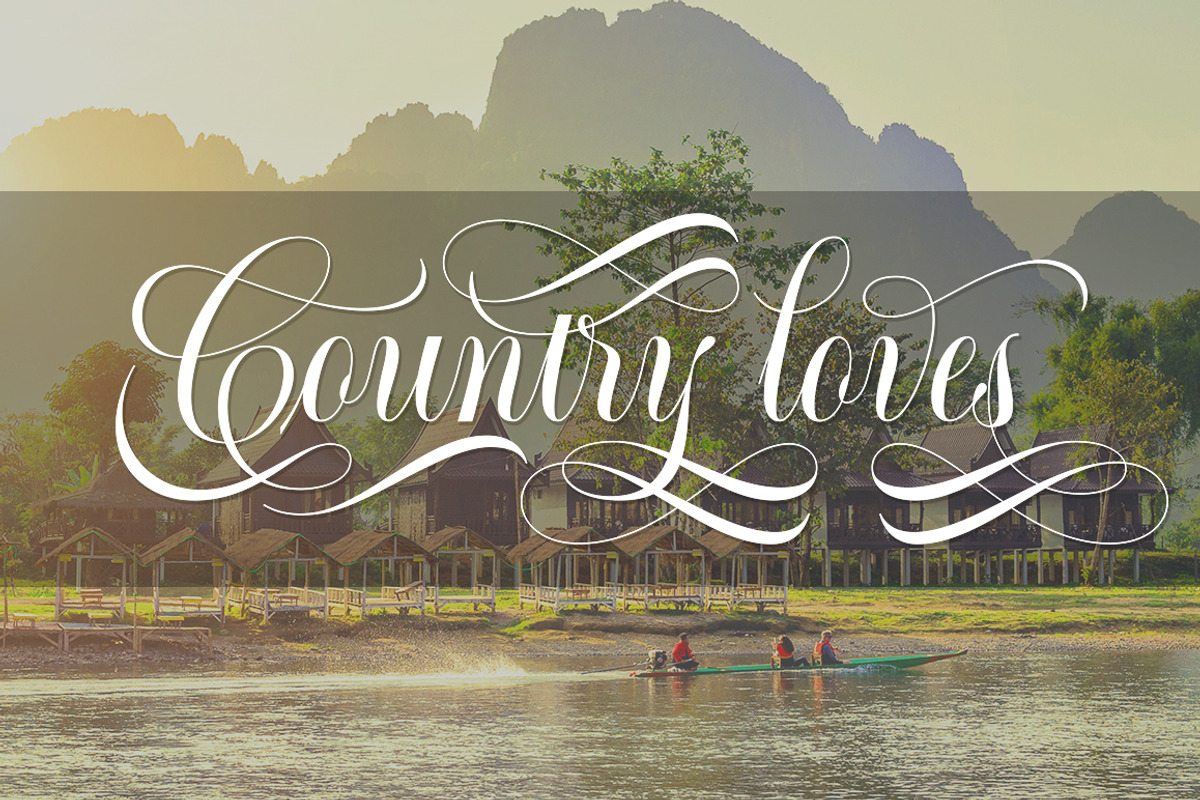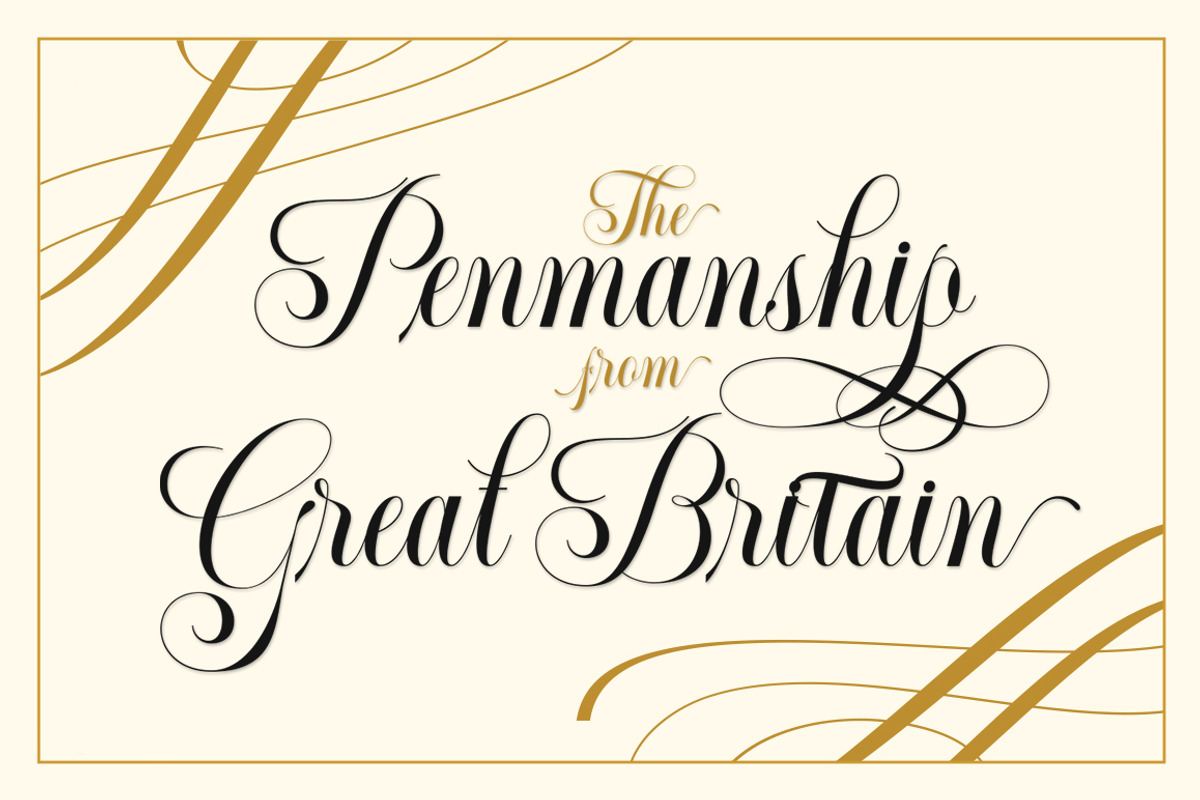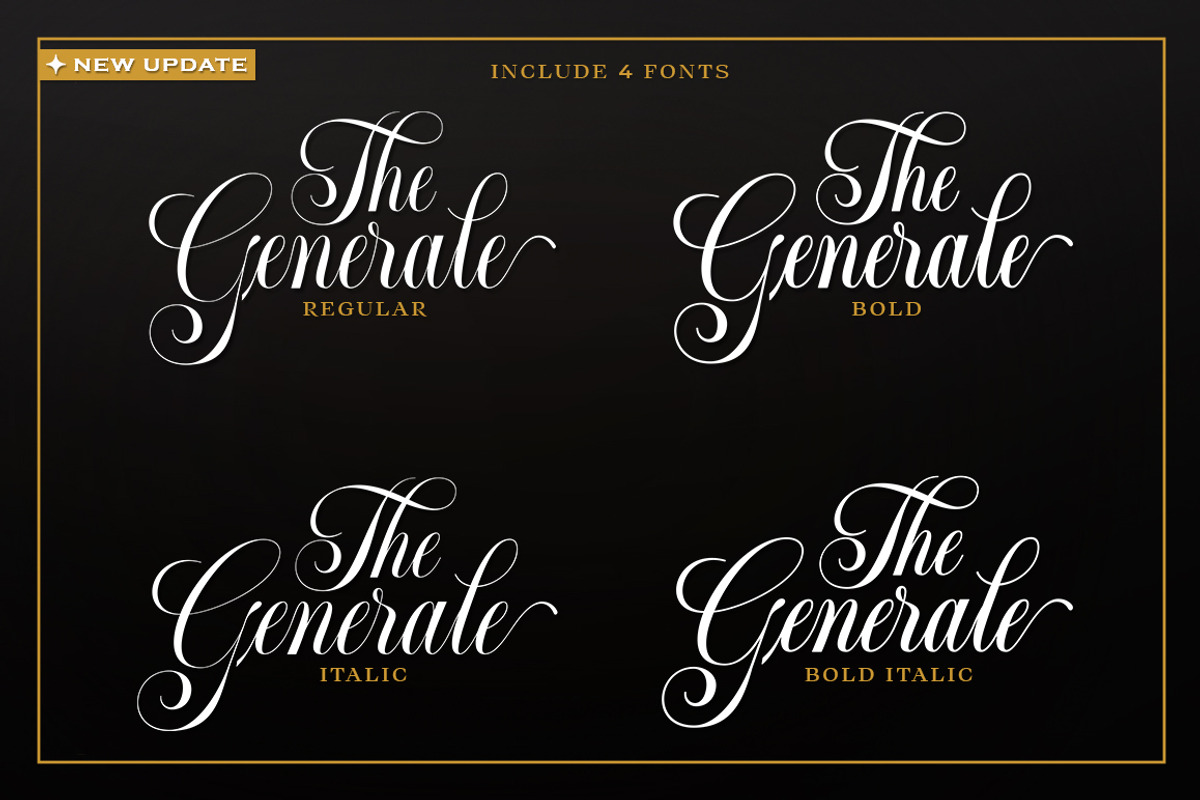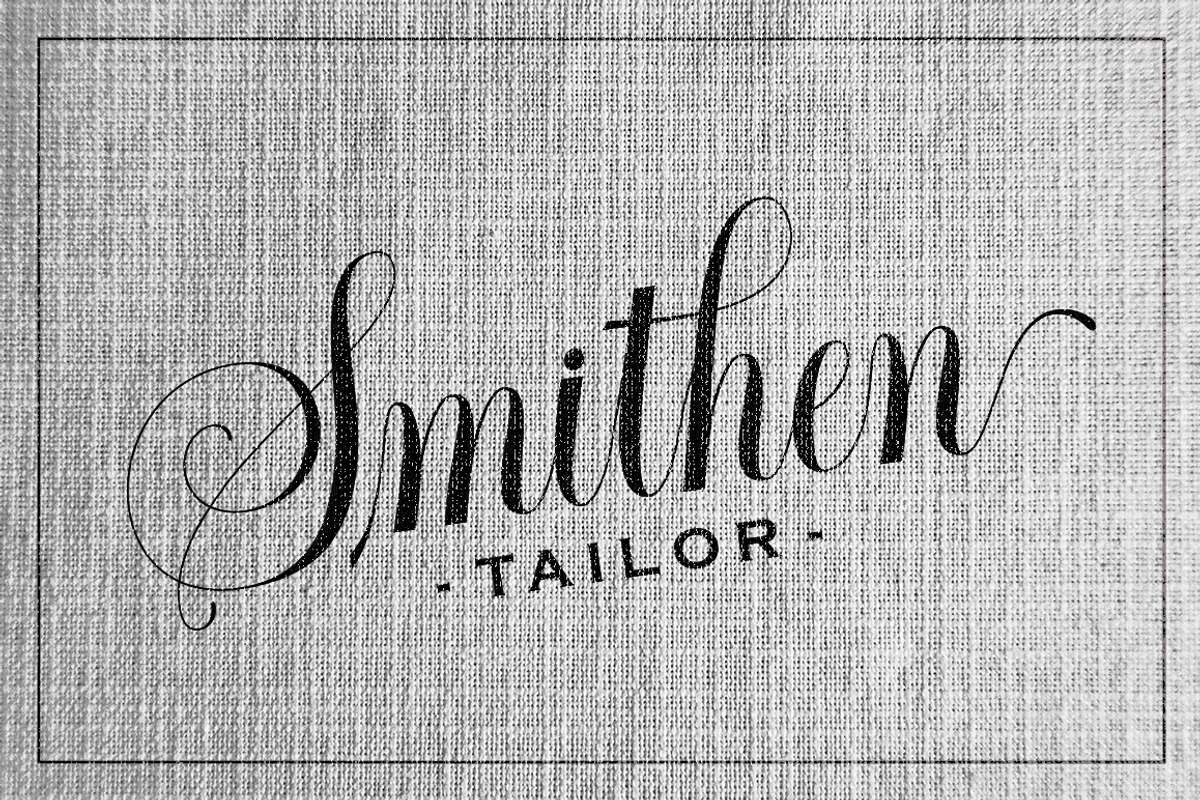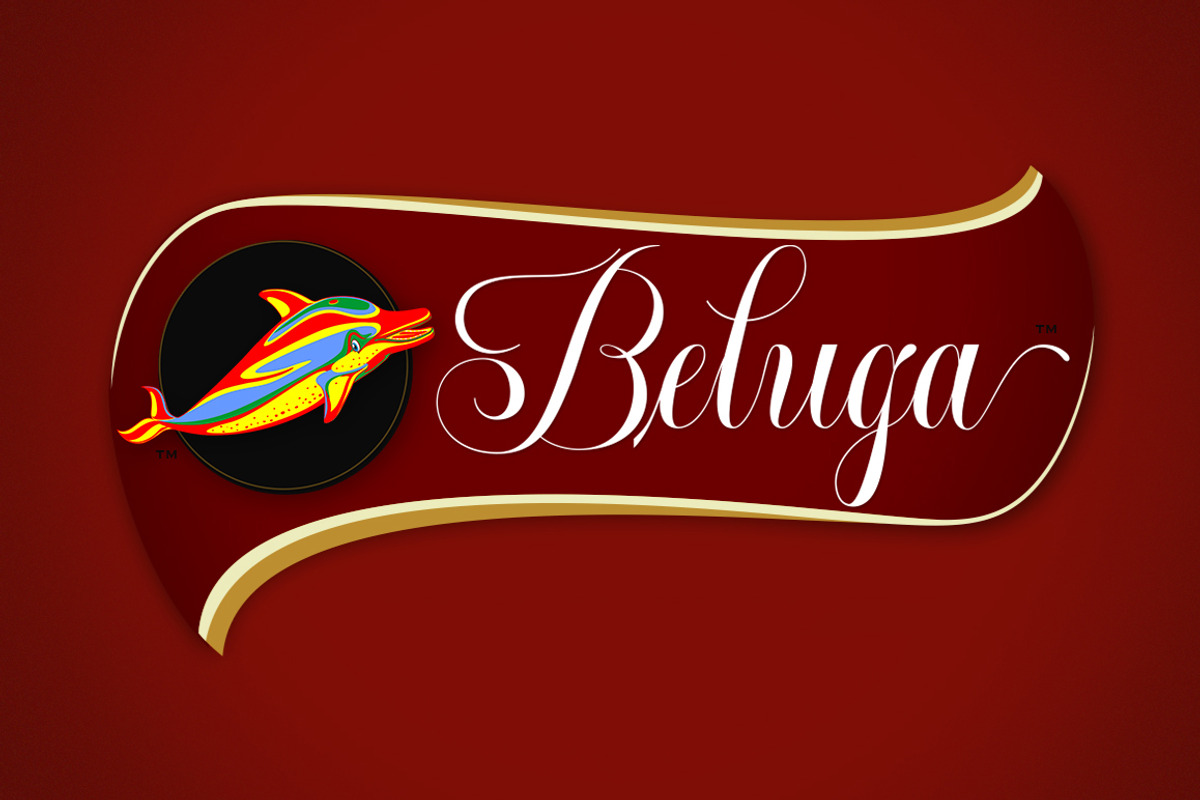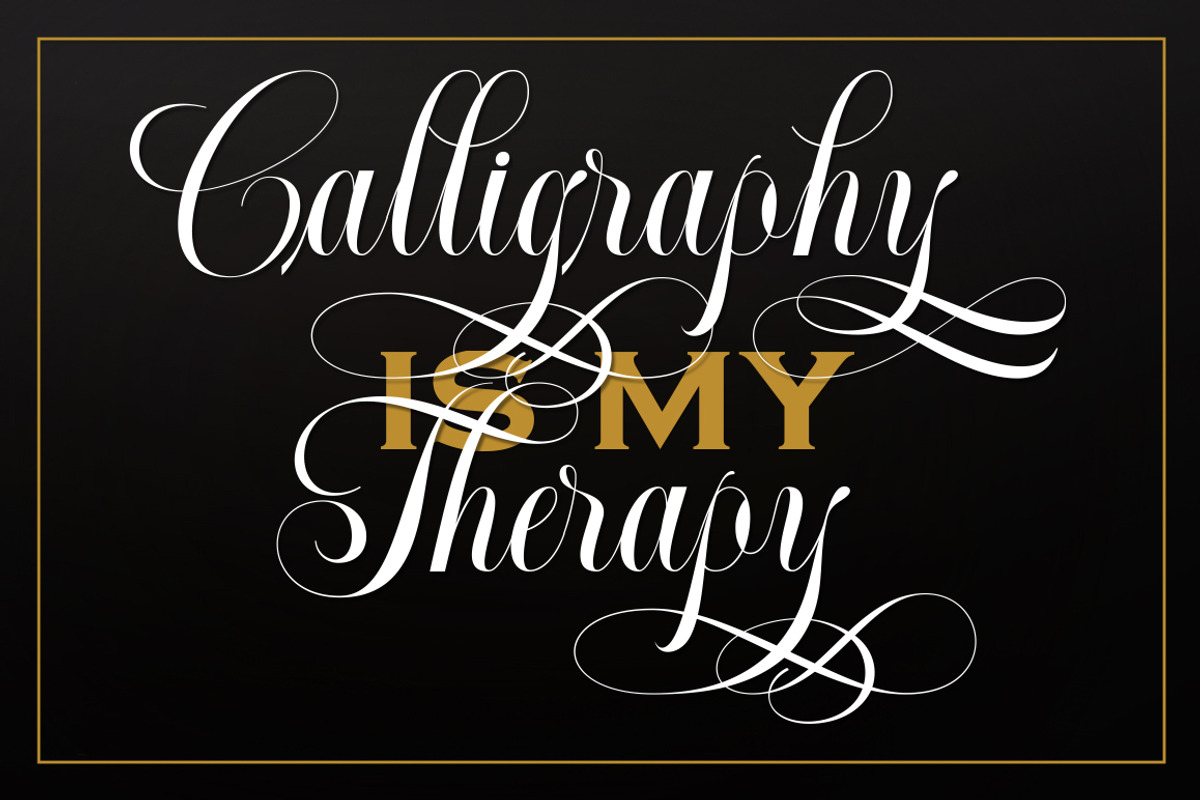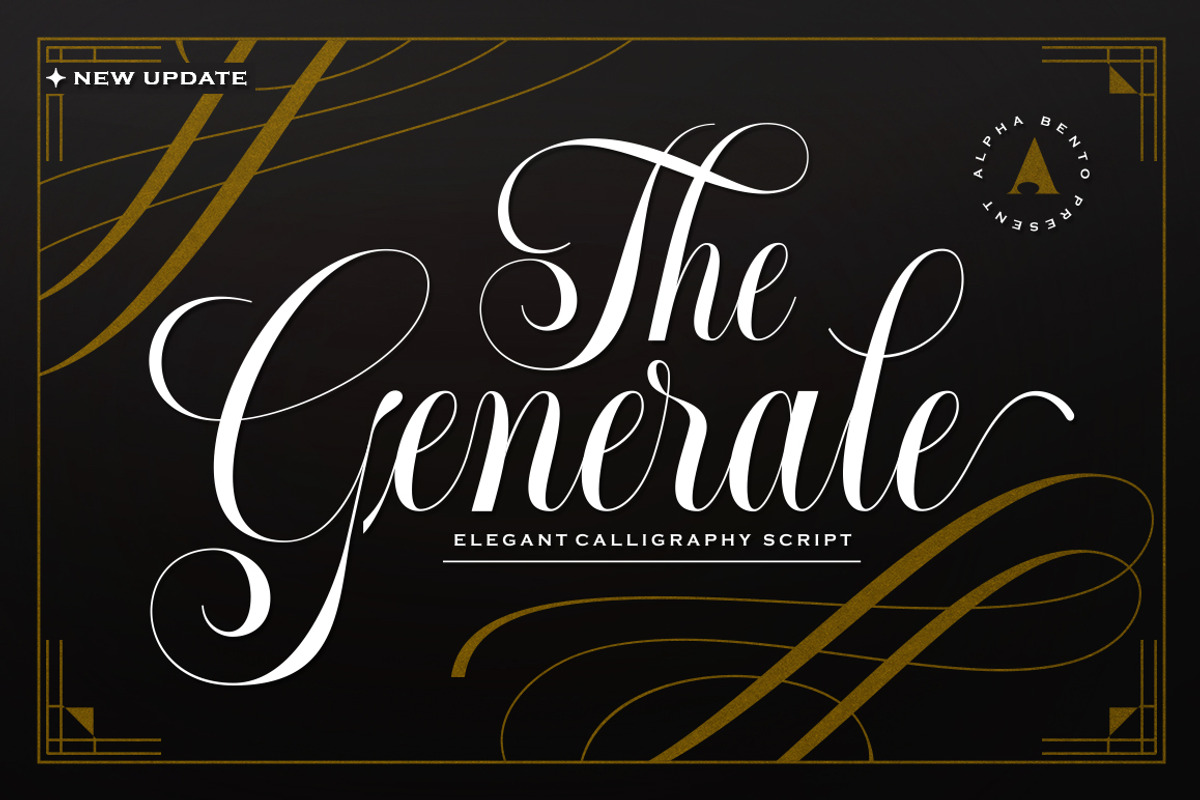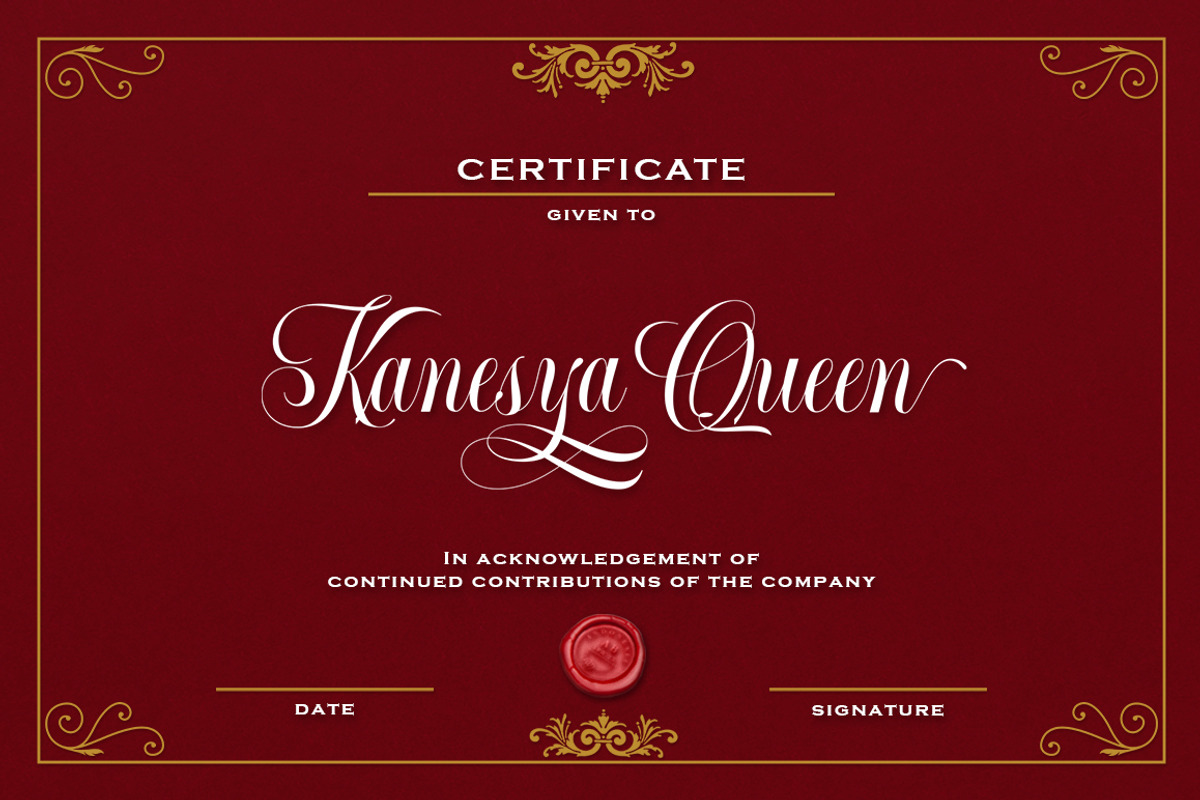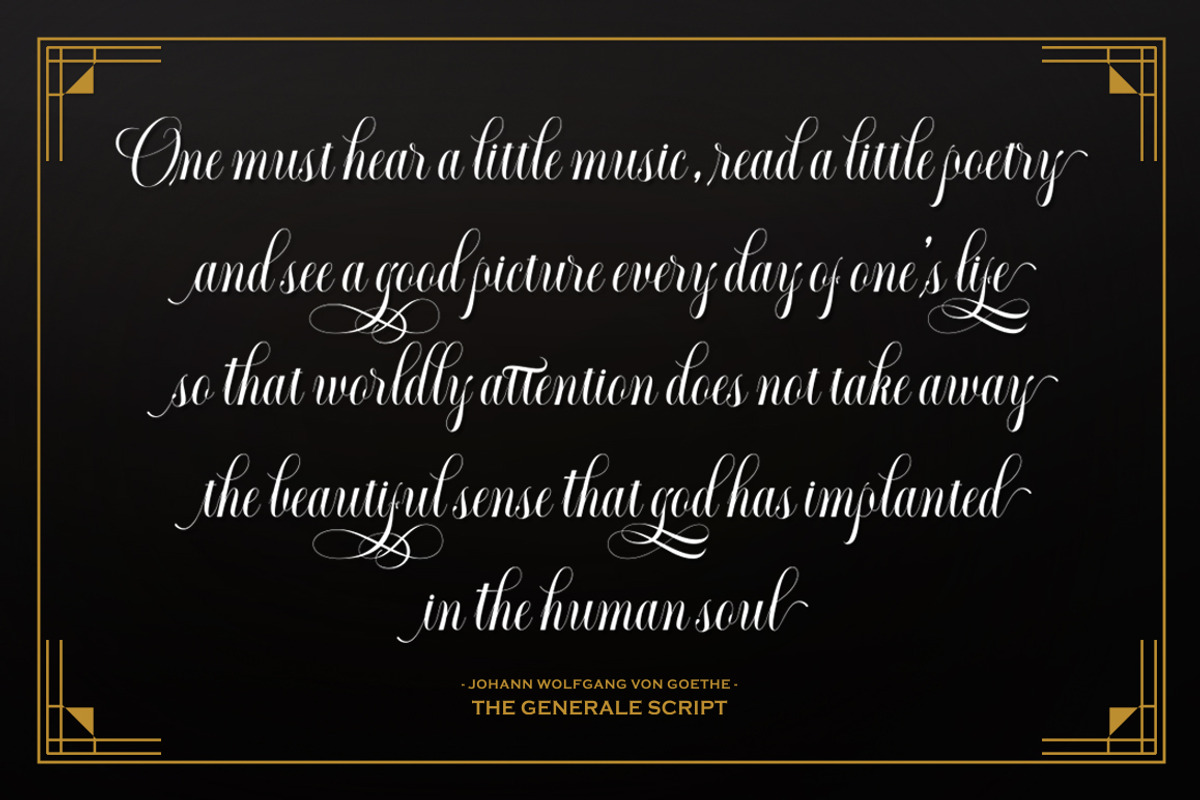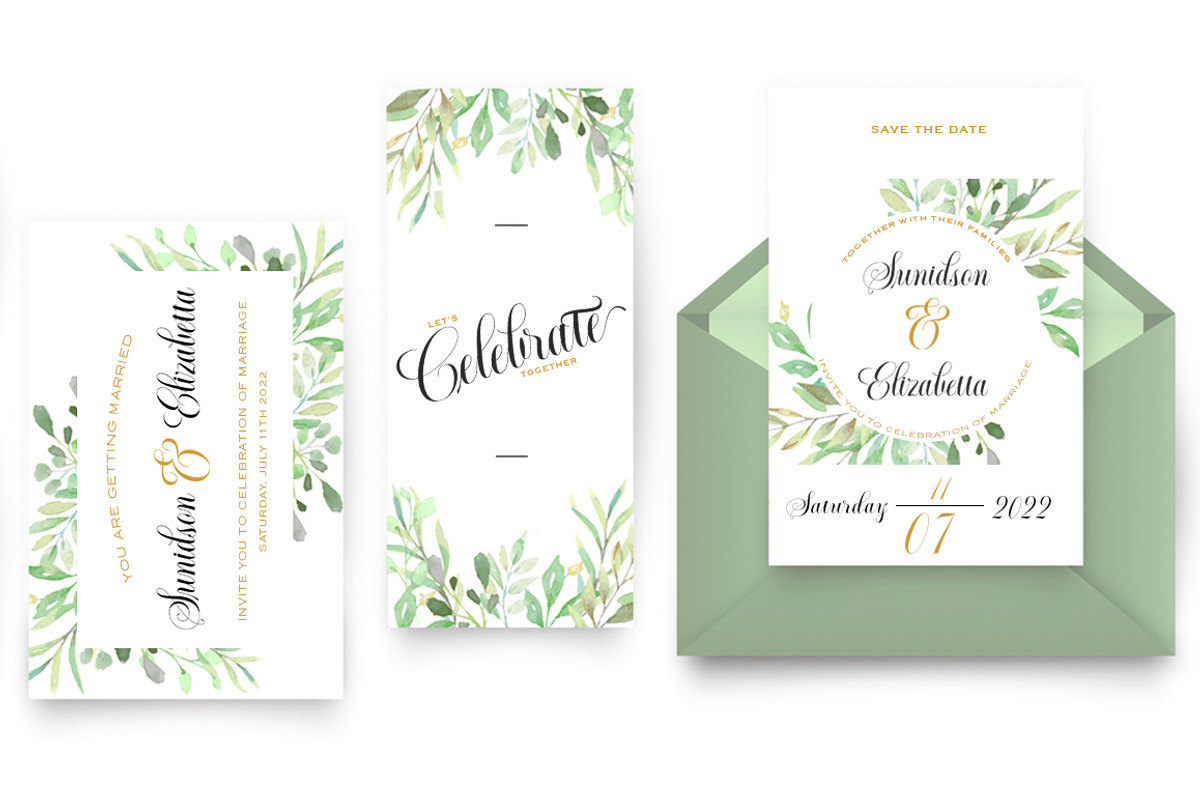
Generale Script
Generale Script is the font of choice for writing things that go beyond words. This font type is designed with high detail to deliver stylish elegance. So, it can be said, the character of the change is very beautiful, a kind of classical decorative copper script.
Generale Script presents alternative variants of most letters, binders, and many calligraphy tips, ideal for elegant labels, high-end packaging, stationery, and compositions for certain brands, beautiful titling, verses, letters and short texts, which are intended to be read only with the eyes or intended to whisper into someone's ear.
Generale Script - with 4 styles has 300+ glyphs and alternate characters, including multiple language support. With OpenType features with alternative styles and elegant binders. The OpenType features don't work automatically, but you can access them manually and for best results your creativity will be required in combining variations of these Glyphs.